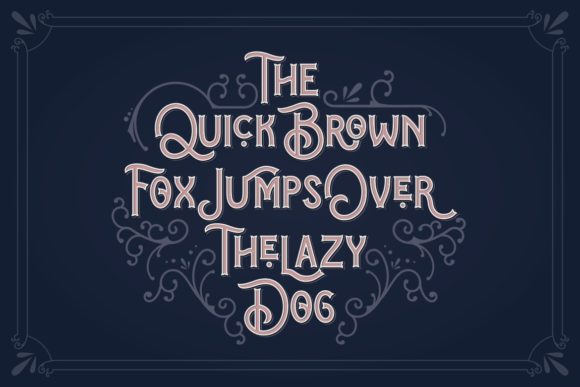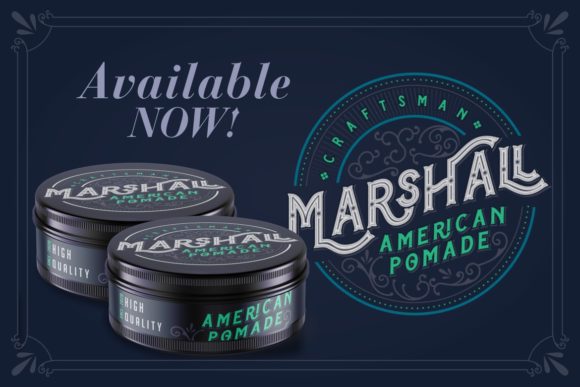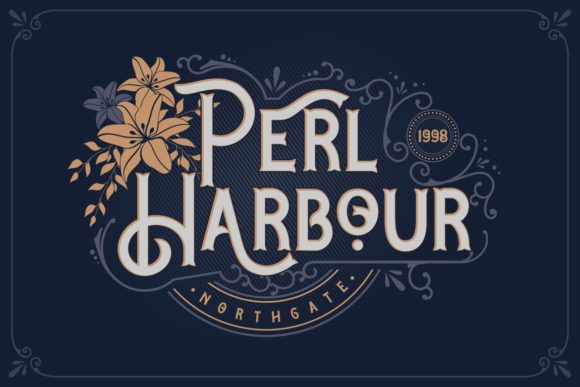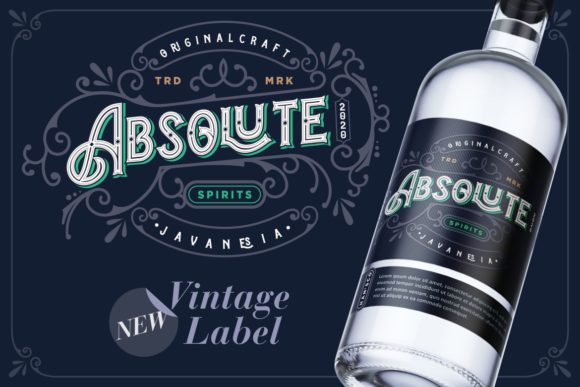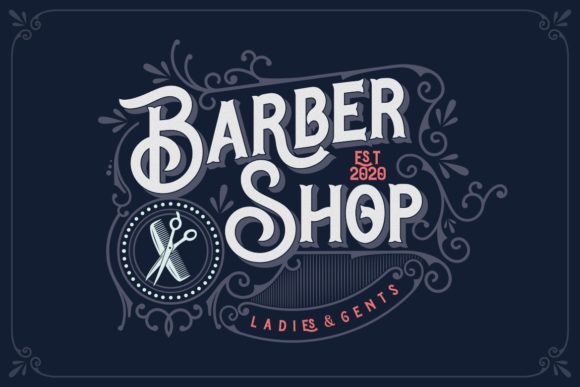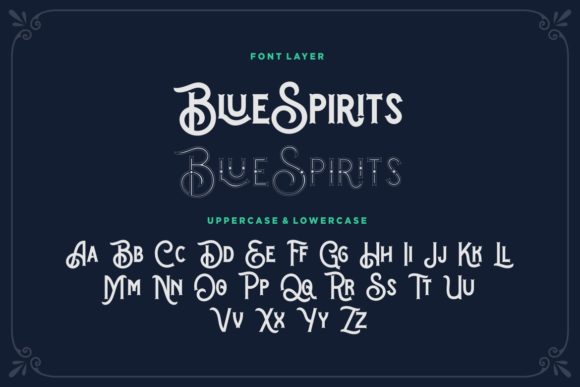
The Quest for the Perfect Vintage Font: Discovering Blue Spirits
Ah, the eternal search for that one font that brings a project to life! I recall working on a vintage-themed craft project, determined to find the perfect display font that would evoke the charm of a bygone era. My client wanted something that would transport their audience to a nostalgic world, but I was struggling to find just the right thing. That’s when I stumbled upon Blue Spirits, a truly original display font with a vintage feel that’s been a game-changer for my design work.
An Honest Review of Blue Spirits Font
What I Love About Blue Spirits ✨
- ✅ Unique vintage aesthetic that’s perfect for craft projects, branding, and advertising materials
- ✅ Highly legible, even at larger font sizes
- ✅ Supports multiple languages and has a wide range of characters
- ✅ Can be used for both digital and print projects
- ⚠️ Some users may find the font a bit too distressed or worn for certain applications
- ⚠️ Limited availability of condensed or italic versions
The Backstory Behind Blue Spirits
While the origins of Blue Spirits are shrouded in mystery, it’s said that the font was inspired by vintage signs and typography from the early 20th century. The designer, known for their love of nostalgic aesthetics, aimed to create a font that would evoke a sense of timelessness and classic charm.
| Font Name | Blue Spirits Font |
| Author | HansCo |
Q: What type of projects is Blue Spirits best suited for?
A: Blue Spirits is perfect for craft projects, branding, advertising materials, and any design project that requires a vintage or nostalgic feel.
Q: Does Blue Spirits support OpenType features?
A: Yes, Blue Spirits supports OpenType features, including glyphs and stylistic alternates, allowing for greater creative flexibility.